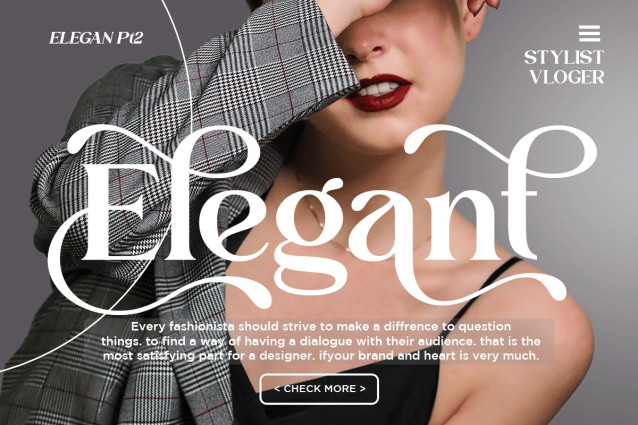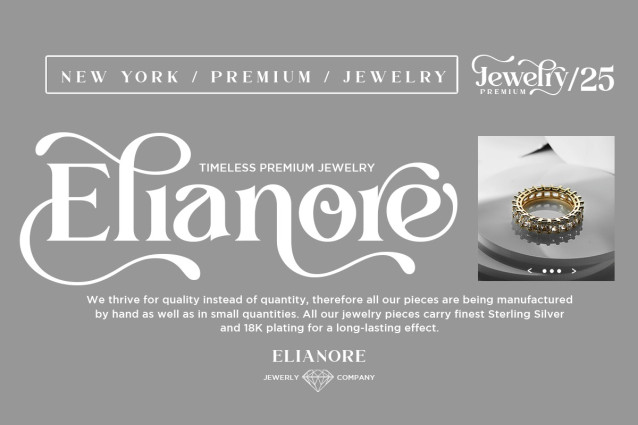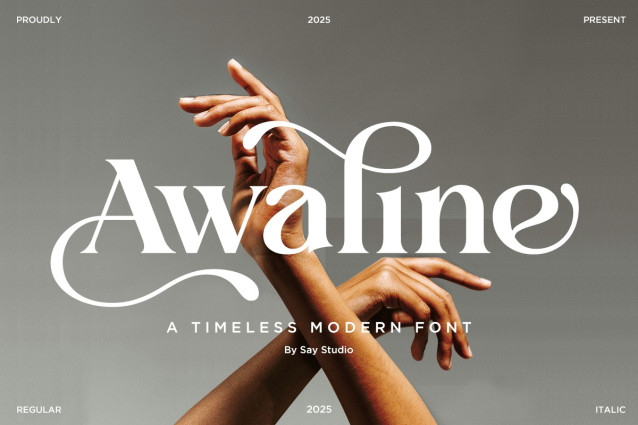
Awaline Font
Awaline Font is a modern and timeless serif typeface designed for designers who appreciate refined aesthetics and elegant forms. With its graceful curves, soft contrast, and expressive ligatures, Awaline brings a touch of sophistication to branding and editorial layouts.
and high-end packaging.
Ideal for fashion brands, magazine headlines, beauty brands and wedding identity systems, this typeface enhances every project with its modern classic character.